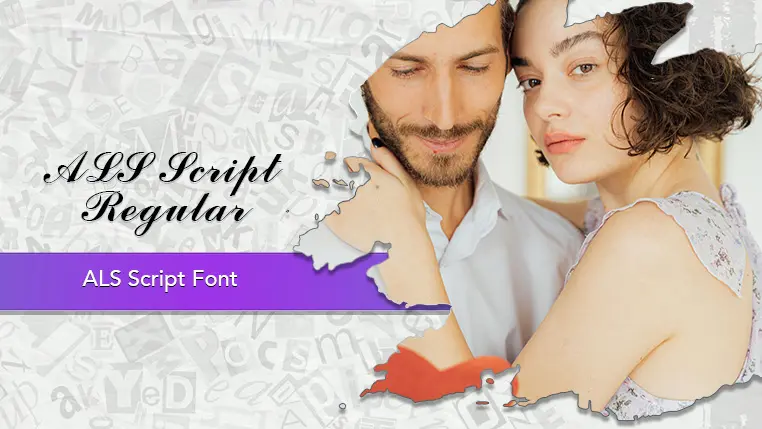
The ALS Script font family may be ideal for you if you enjoy working on an artistic design project. The lively, expressive look of this typeface, which was created by Digital Graphic Labs, makes it ideal for Logos and Branding. The font's elegant, calligraphic style makes it an excellent choice for wedding invitations, formal event announcements, and diplomas. It works beautifully for headlines on posters, book covers, or in advertisements where a touch of romance or sophistication is needed. The font is ideal for custom stationery, personalized greeting cards, and name tags. and other light-hearted visual projects.
Regular are the one primary font styles of the ALS Script font family. You may build dynamic, visually appealing text layouts with the distinct flair that each style offers. With crisp, readable lines and a relaxed tone.